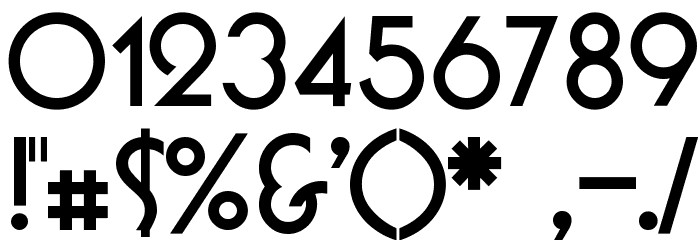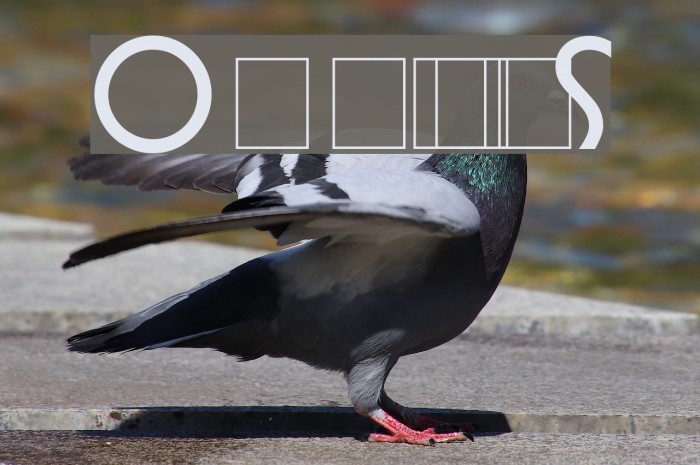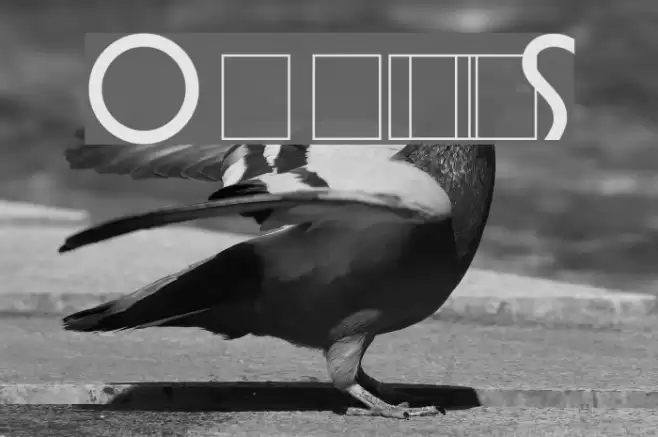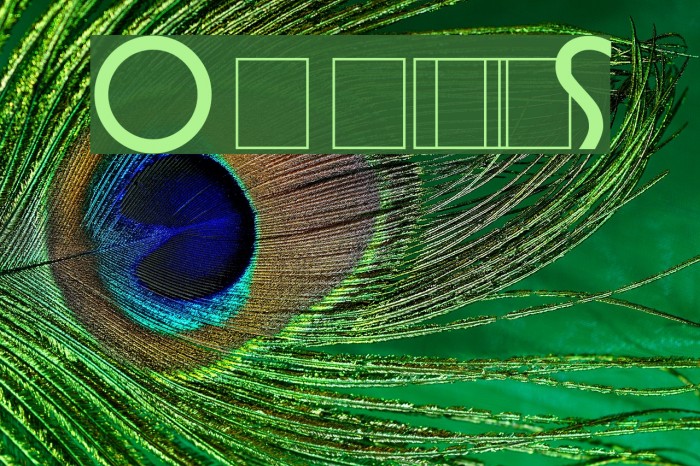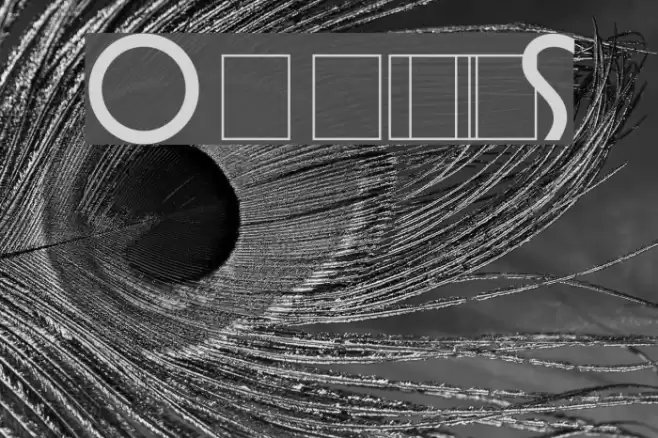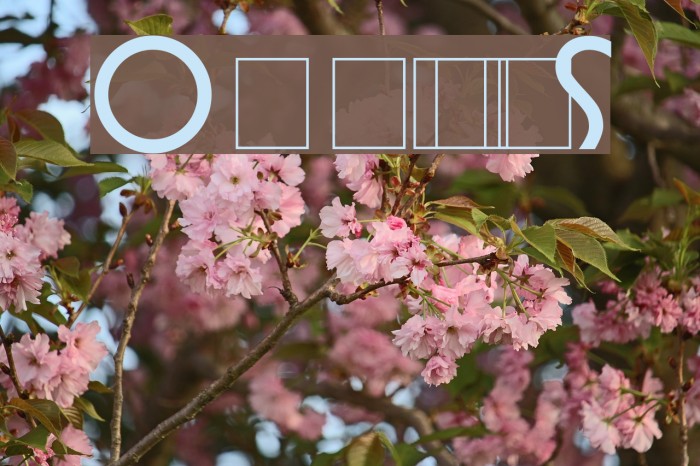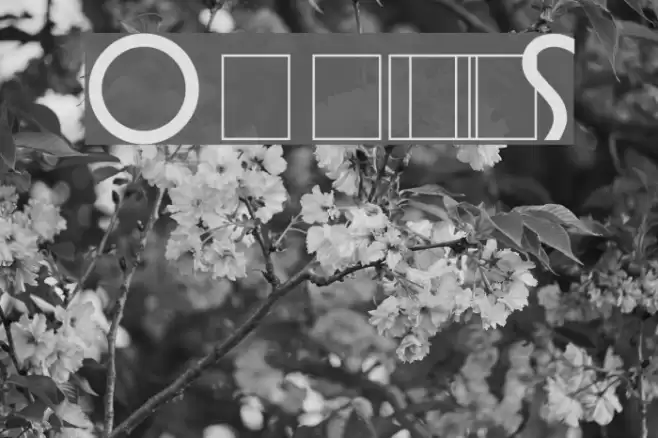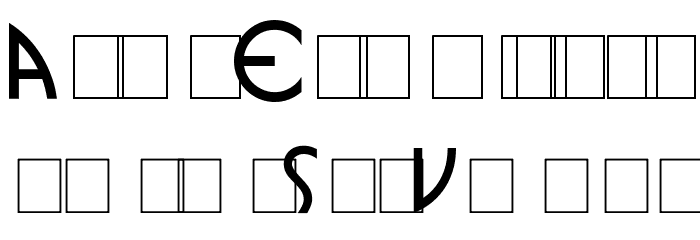
Omnibus Font
This font features a modern and geometric design with clean lines and a sleek appearance. The uppercase letters are bold and slightly condensed, giving a strong and impactful look. The lowercase letters maintain a consistent style, with smooth curves and a uniform thickness that enhances readability. The numerals are distinct and well-proportioned, matching the overall aesthetic of the font. Special characters are designed with the same attention to detail, ensuring they integrate seamlessly with the rest of the typeface. This font is ideal for projects that require a contemporary and professional appearance.